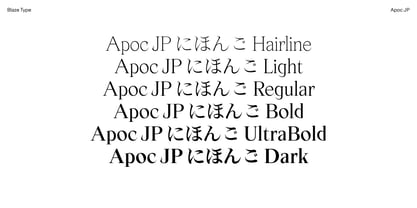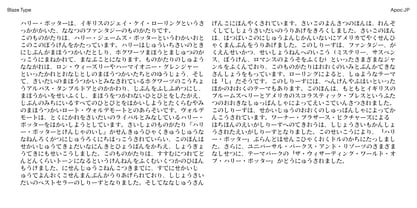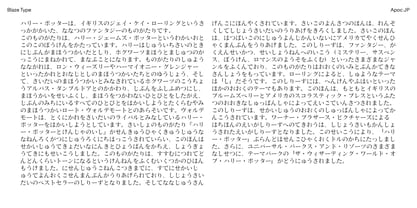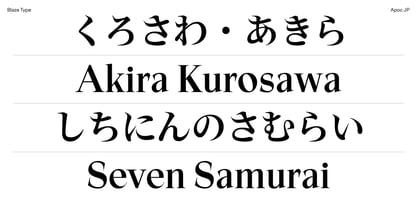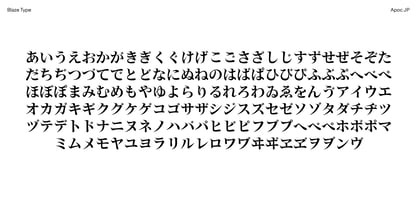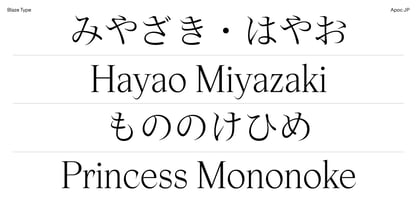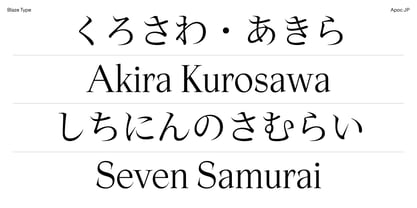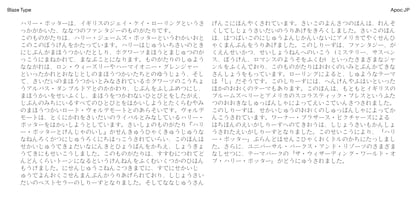
Apoc JP Revelations
by Blaze Type
The Apoc JP Revelations Font Family was designed by Caio Kondo, Matthieu Salvaggio and published by Blaze Type. Apoc JP Revelations contains 7 styles and family package options. More about this family
Apoc JP is the Latin+Japanese (Kana) support of Apoc Font Family. Supporting both Horizontal and Vertical writing system. Apoc embodies the battle between Light and Dark. Apoc(alypse)'s sharp character set & alternates were released in 2018 and updated in 2020 & 2022 by Matthieu Salvaggio. Defined by designers as the most popular typeface of standout contemporary independent design, Apoc is an elegant, sharp, expressive font family, perfect for bold standout displays focusing on heavy font uses. This font is perfectly suited to sharpen your website headlines, art exhibition's posters or even your album covers.
Designers: Caio Kondo, Matthieu Salvaggio
Foundry: Blaze Type